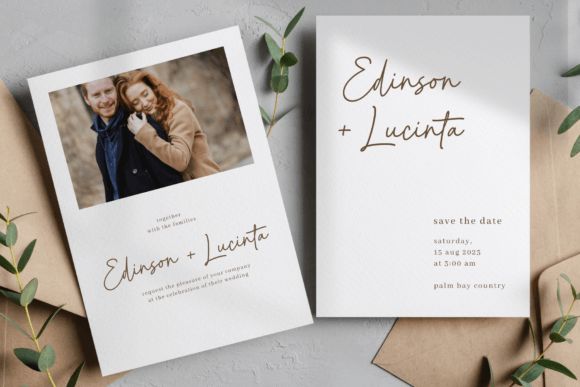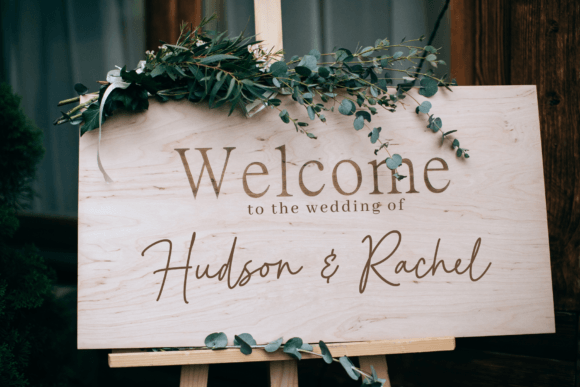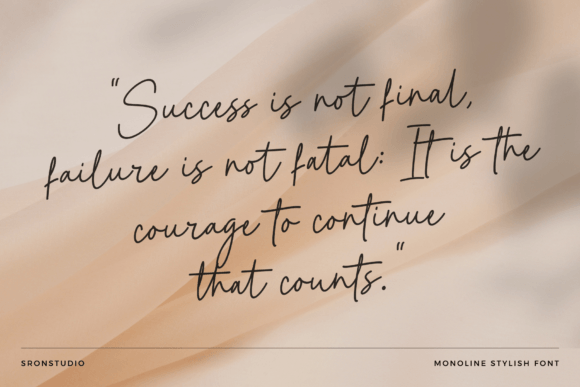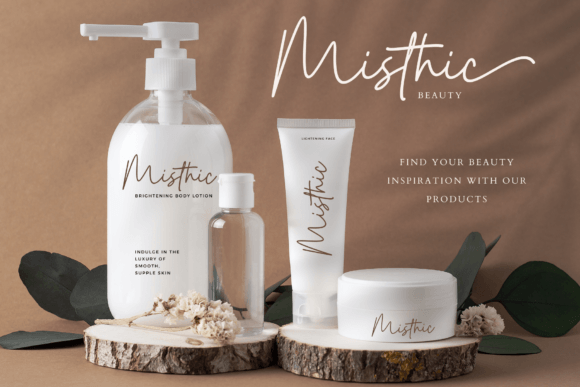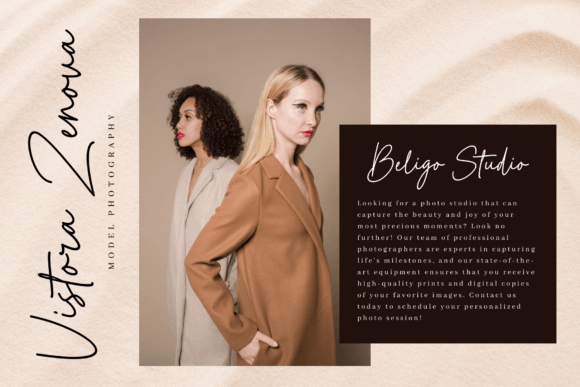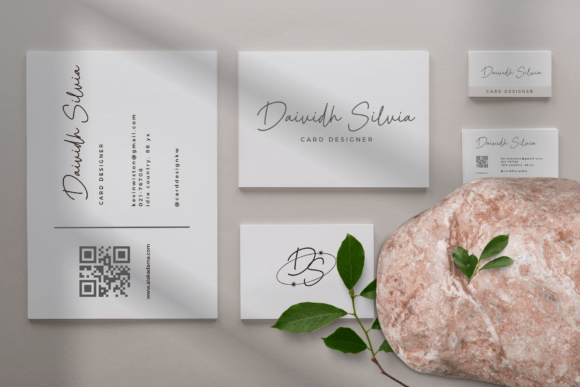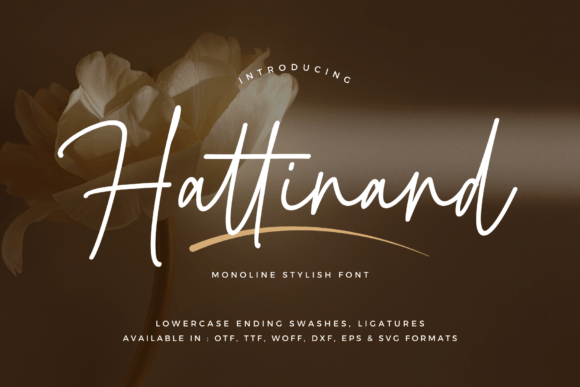
Introducing Hattinand Font: Elevate Your Designs with Elegance and Sophistication
In the world of typography, fonts play a crucial role in conveying the tone and personality of a brand or design. For designers and crafters looking to add a touch of elegance and sophistication to their projects, Hattinand Font is an excellent choice. This sleek monoline script font is designed to impress, featuring beautifully crafted alternates and ligatures that will take your designs to the next level.
What Makes Hattinand Font Stand Out?
Hattinand Font boasts a modern and stylish appearance that is perfect for adding a touch of sophistication to any design. Its clean lines and delicate curves enhance readability and legibility, making it a versatile choice for a wide range of applications, from branding and social media graphics to advertising and more.
One of the standout features of Hattinand Font is its beautifully crafted alternates and ligatures. These typographic elements allow designers to add a level of elegance and refinement to their text, making it perfect for high-end branding, luxury packaging, and sophisticated advertising campaigns.
Hattinand Font is an incredibly versatile typeface that can be used in a variety of design applications. Whether you’re working on a branding project, creating social media graphics, or designing advertising materials, this font is sure to impress.
For branding projects, Hattinand Font offers a level of sophistication and elegance that is hard to match. Its clean lines and delicate curves make it perfect for creating high-end logos, business cards, and letterheads that exude professionalism and style.
When it comes to social media graphics, Hattinand Font is an excellent choice for creating eye-catching and engaging content. Its modern and stylish appearance is sure to grab the attention of your audience, while its readability and legibility ensure that your message gets across clearly.
Key Features of Hattinand Font
So, what makes Hattinand Font such a great choice for designers and crafters? Here are just a few of its key features:
- Sleek monoline script font: Hattinand Font features a sleek and modern monoline script design that is perfect for adding a touch of elegance to any project.
- Beautifully crafted alternates and ligatures: The font includes a range of beautifully crafted alternates and ligatures that allow designers to add a level of sophistication and refinement to their text.
- Clean lines and delicate curves: Hattinand Font’s clean lines and delicate curves enhance readability and legibility, making it perfect for a wide range of design applications.
- Modern and stylish appearance: The font’s modern and stylish appearance adds a touch of sophistication to any design, making it perfect for high-end branding, luxury packaging, and sophisticated advertising campaigns.
Tips for Using Hattinand Font
To get the most out of Hattinand Font, here are a few tips to keep in mind:
- Use it sparingly: While Hattinand Font is a beautiful typeface, it’s best used sparingly to avoid overwhelming the reader. Use it for headings, titles, or key messages to add emphasis and elegance.
- Pair it with a sans-serif font: For body text, consider pairing Hattinand Font with a clean sans-serif font to create a striking contrast and enhance readability.
- Experiment with alternates and ligatures: Don’t be afraid to experiment with Hattinand Font’s alternates and ligatures to add a level of sophistication and refinement to your text.
| Author | Sronstudio |
In conclusion, Hattinand Font is an exceptional typeface that offers a unique blend of elegance, sophistication, and versatility. Its sleek monoline script design, beautifully crafted alternates and ligatures, and clean lines and delicate curves make it perfect for a wide range of design applications, from branding and social media graphics to advertising and more. Whether you’re a designer or crafter looking to elevate your designs, Hattinand Font is an excellent choice.